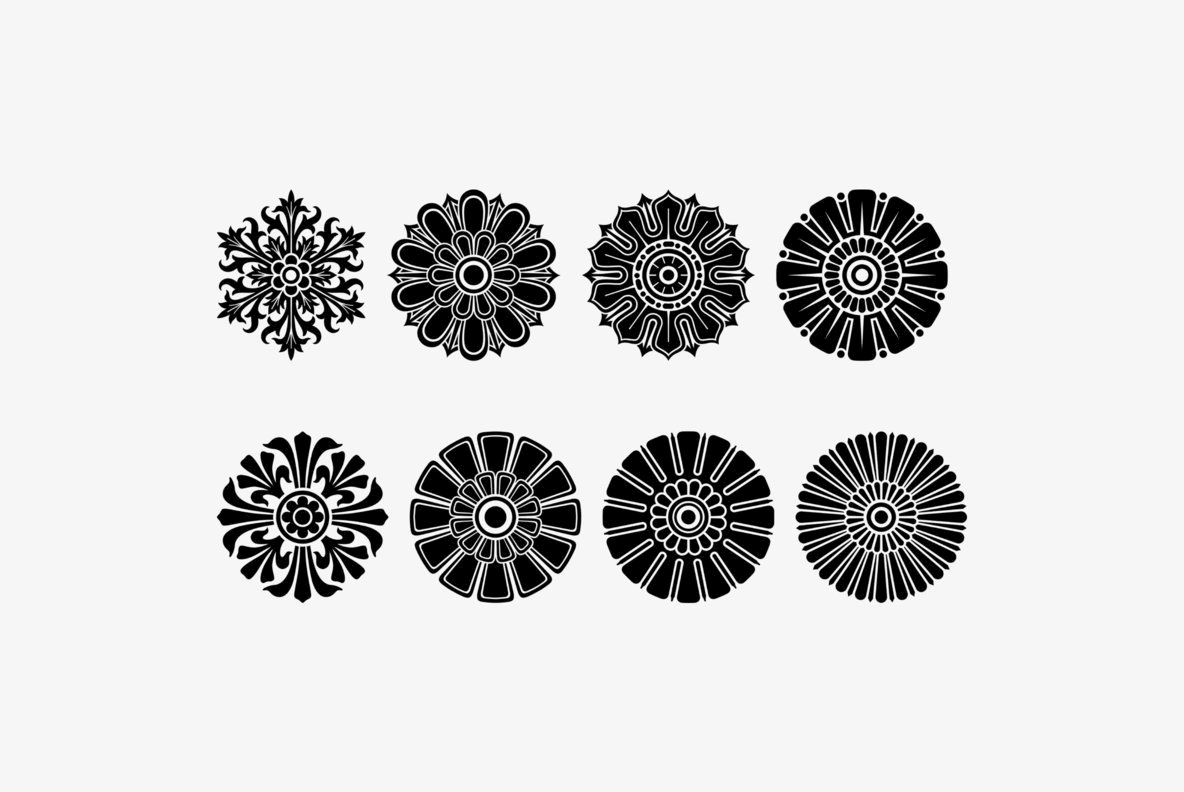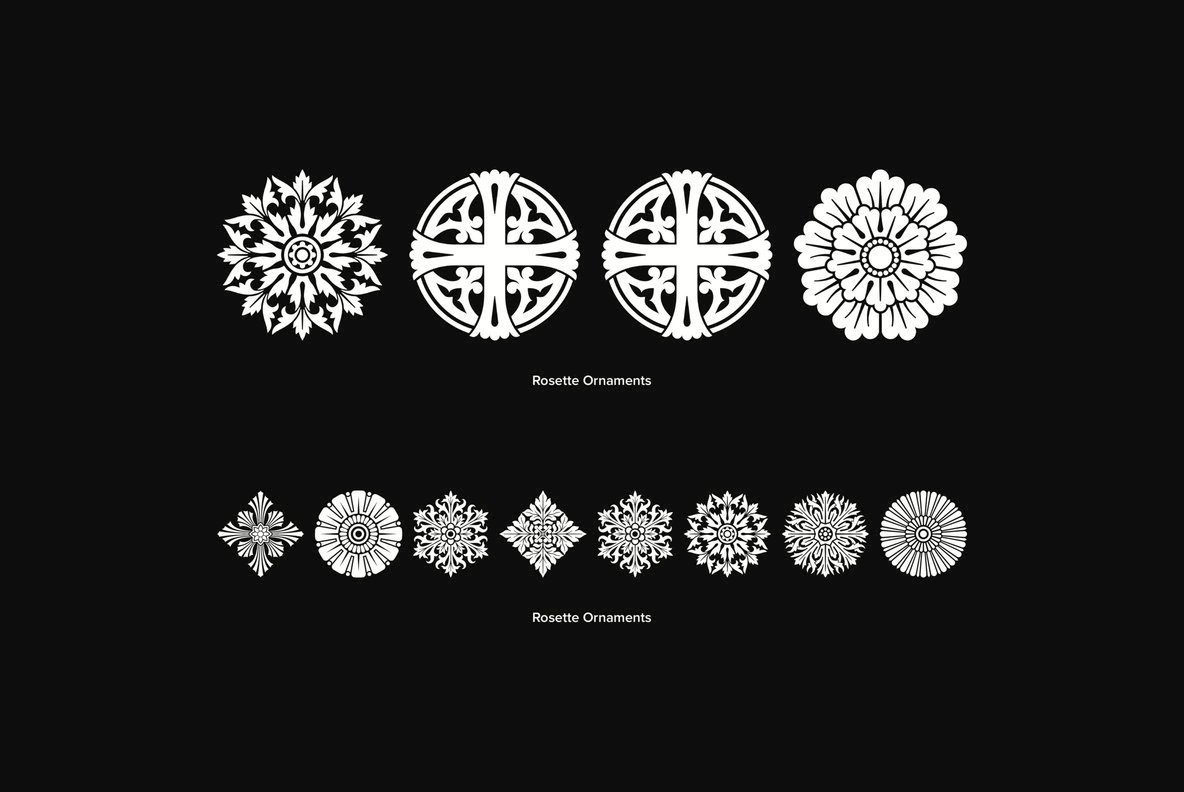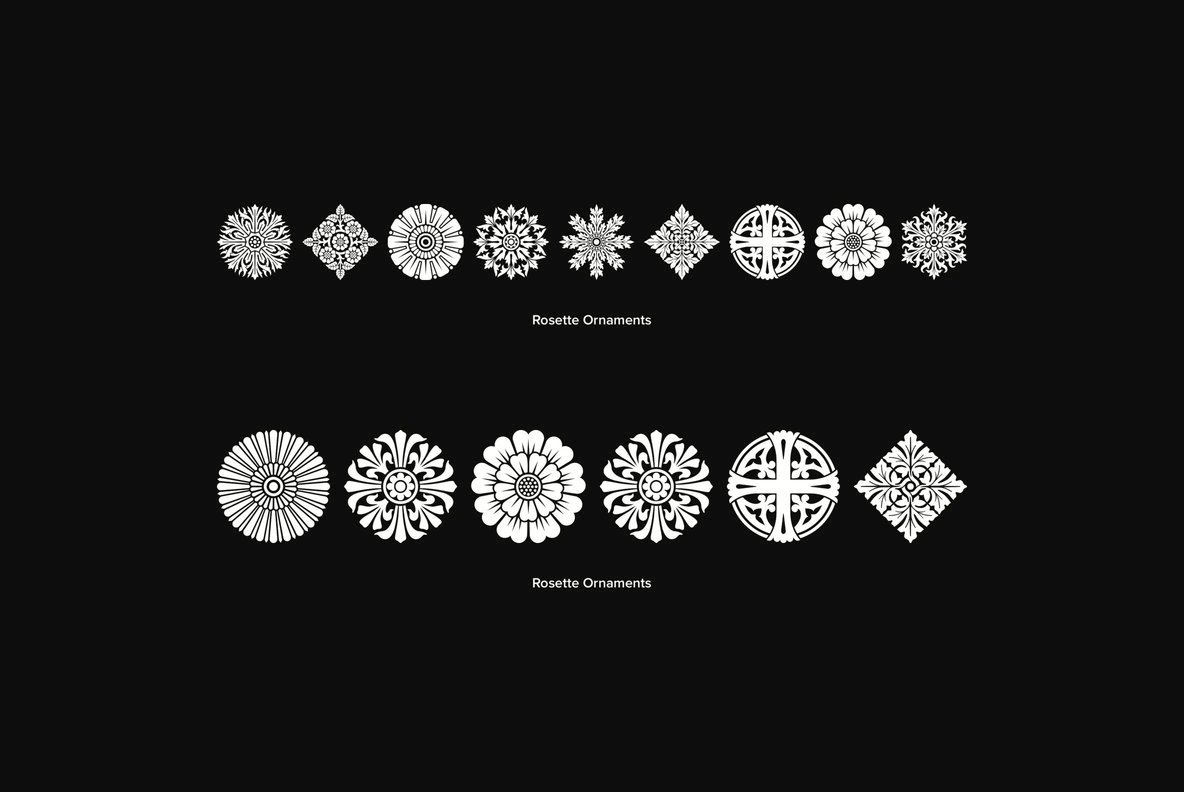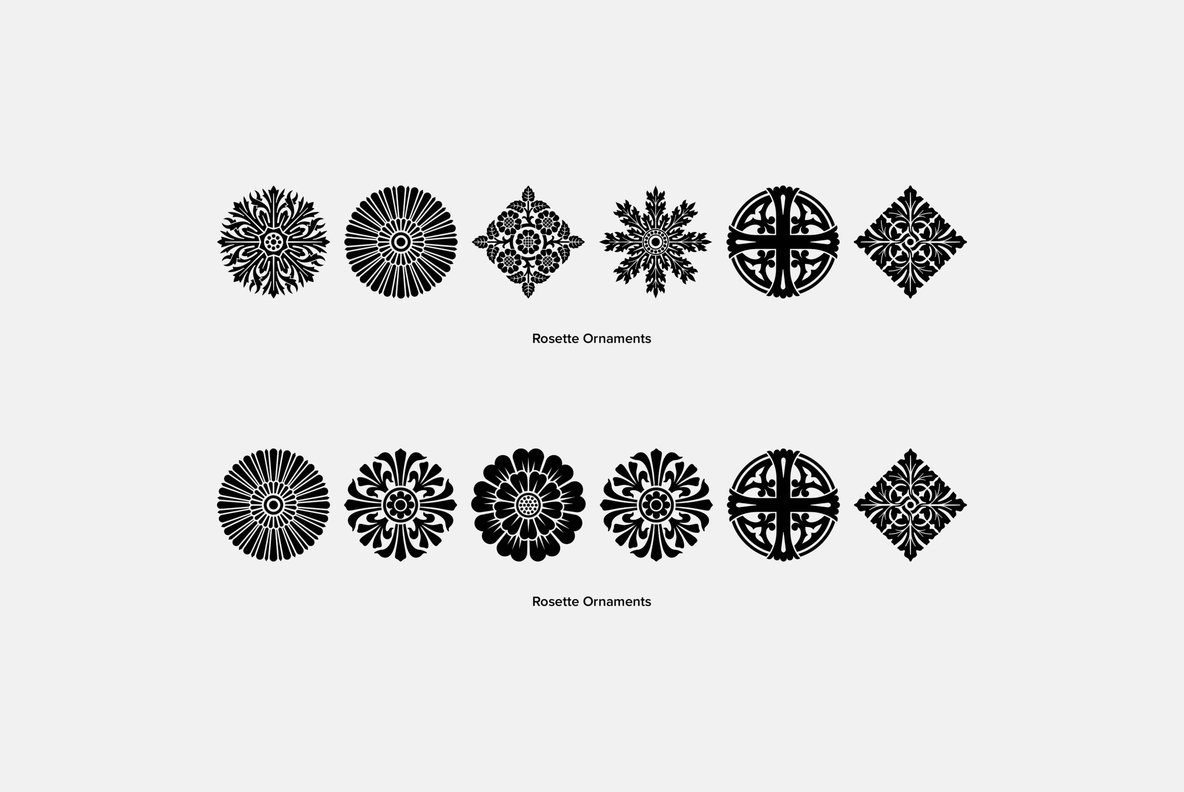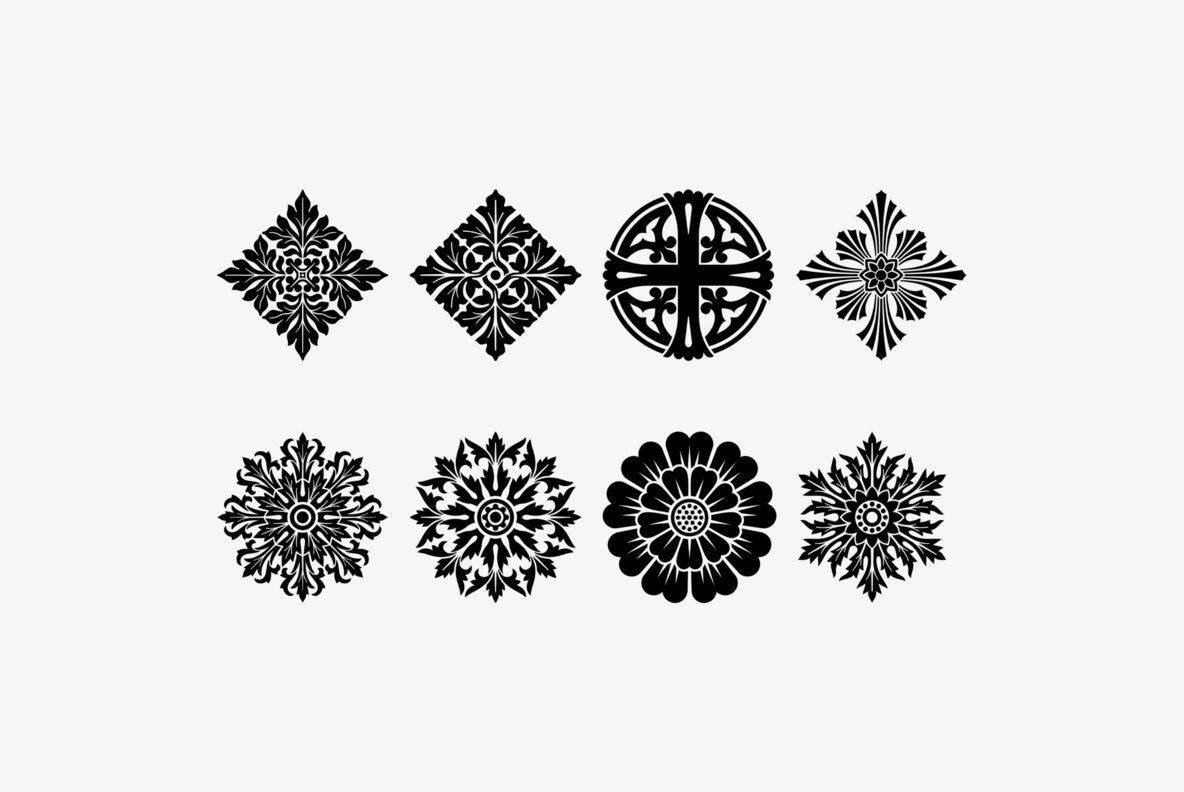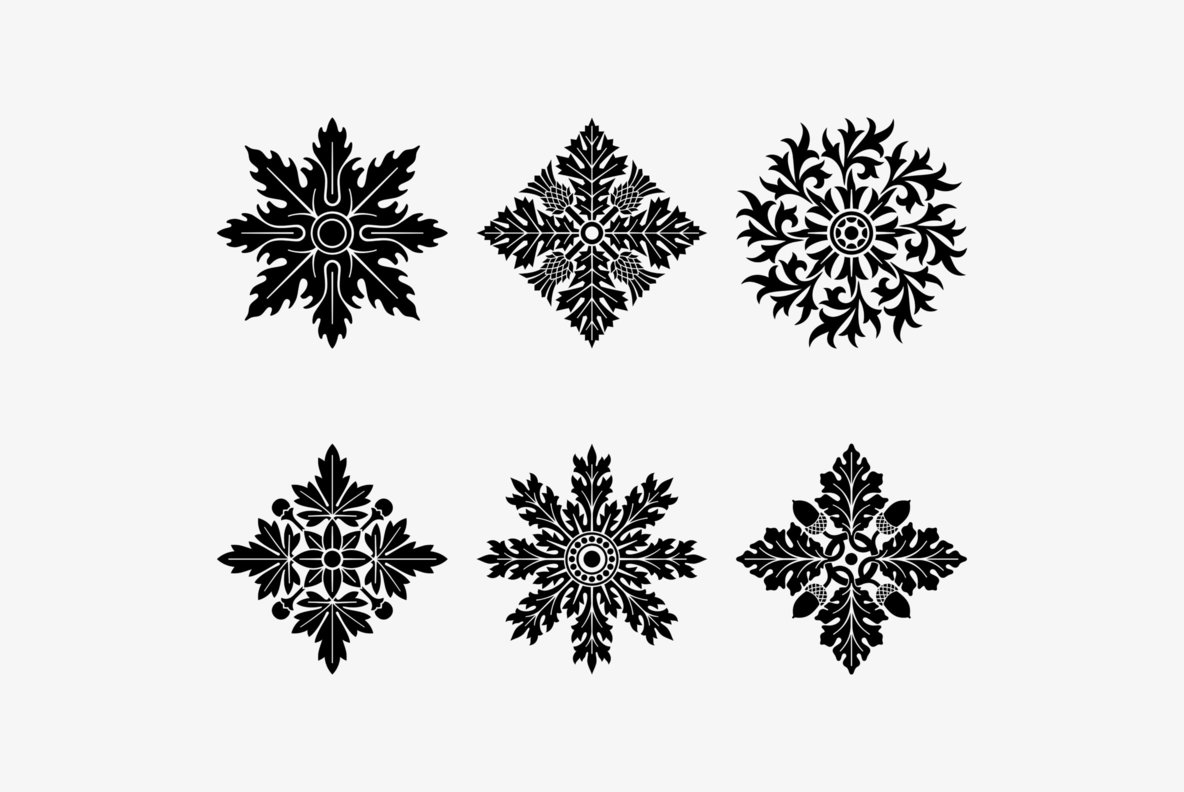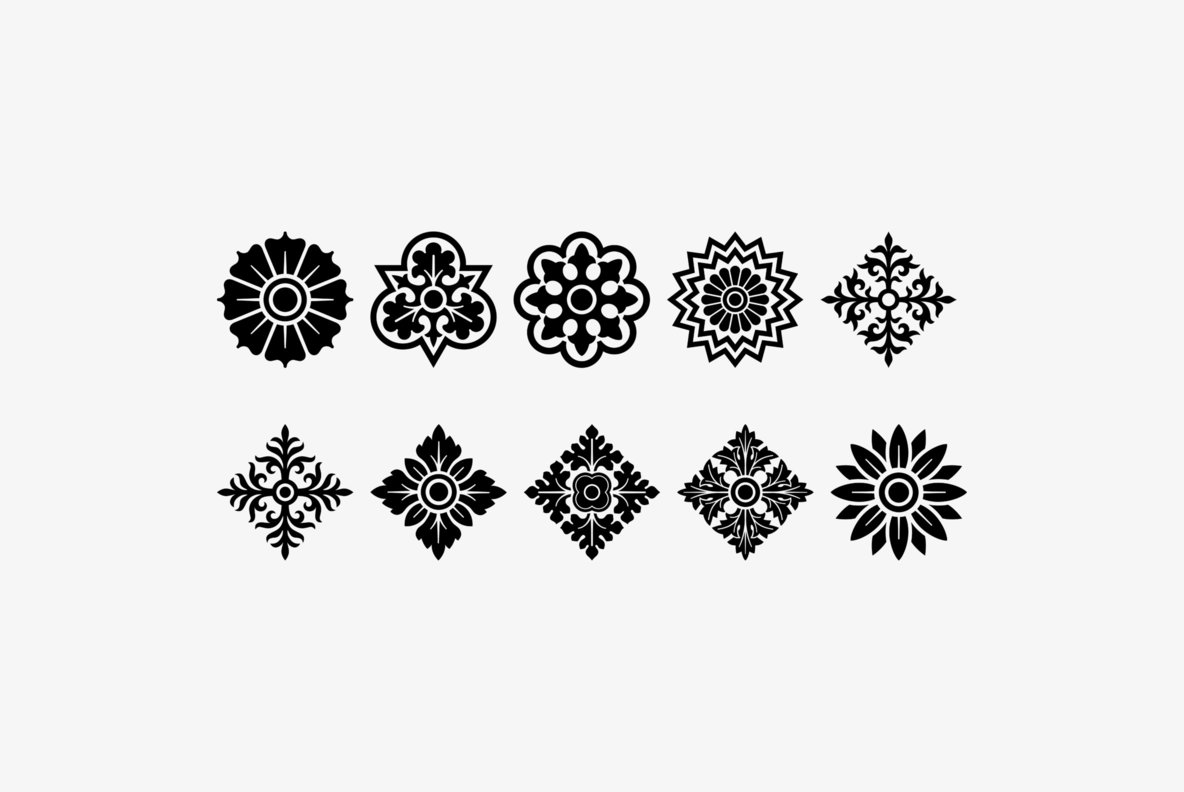
Rosette Ornaments
Rosette Ornaments was inspired by the wide spectrum of ornamental styles produced during the Victorian era.
There is an assortment of 47 ornaments located under the character set keys.